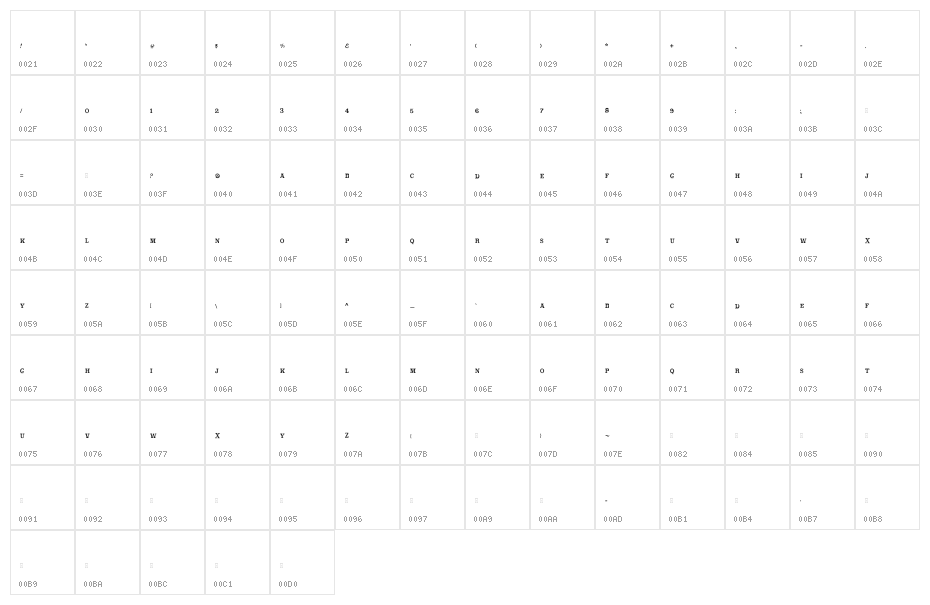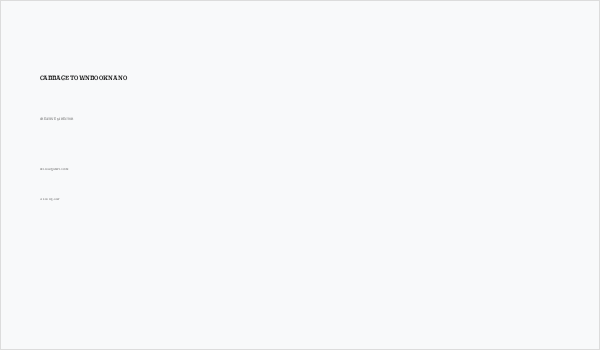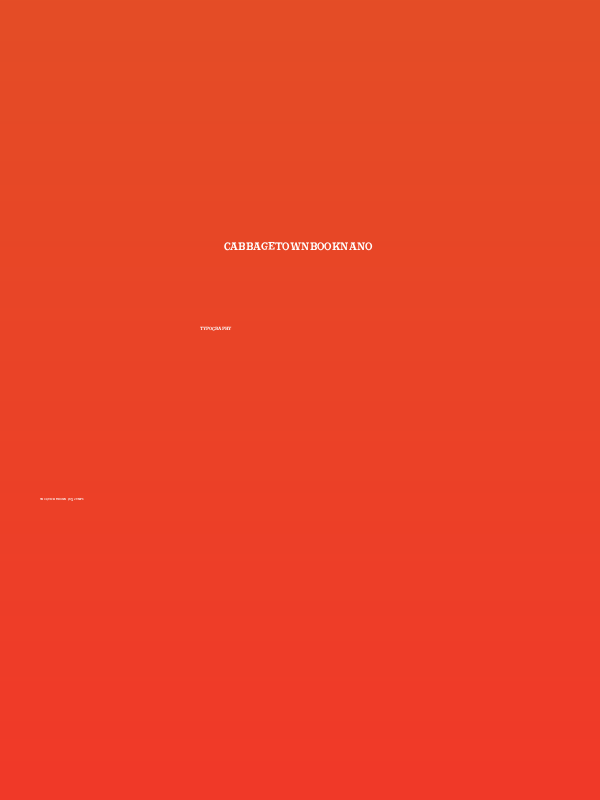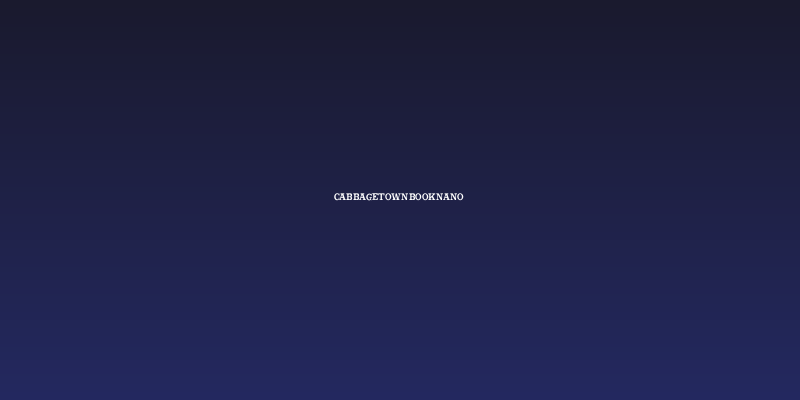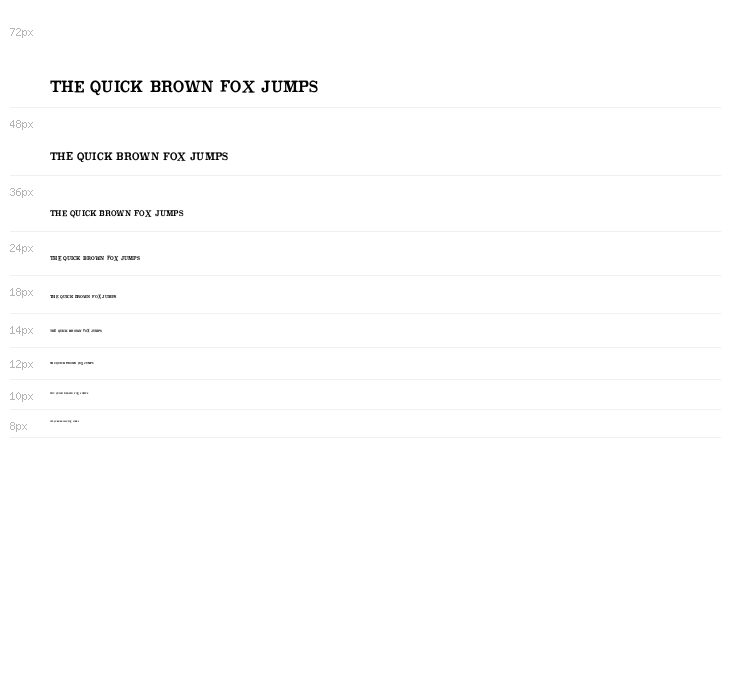
CabbagetownBookNano Font
CabbagetownBookNano Description
This font features a bold and robust serif style, characterized by strong vertical lines and pronounced serifs that give it a classic and authoritative appearance. The uppercase letters are evenly spaced and maintain a consistent height, while the lowercase letters exhibit a traditional serif structure with slightly rounded edges. The numerals are clear and legible, matching the overall boldness of the alphabet. Special characters are well-defined, maintaining the font's cohesive style. This font is ideal for projects that require a traditional yet impactful look.